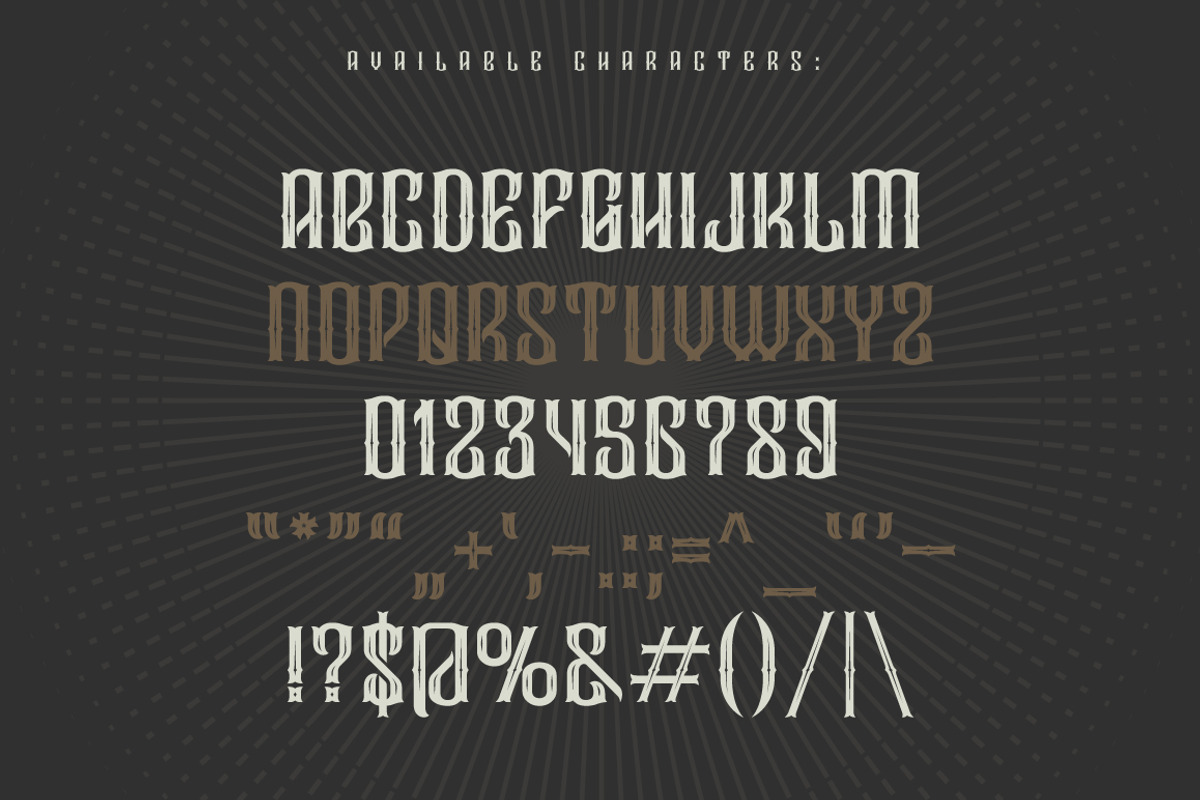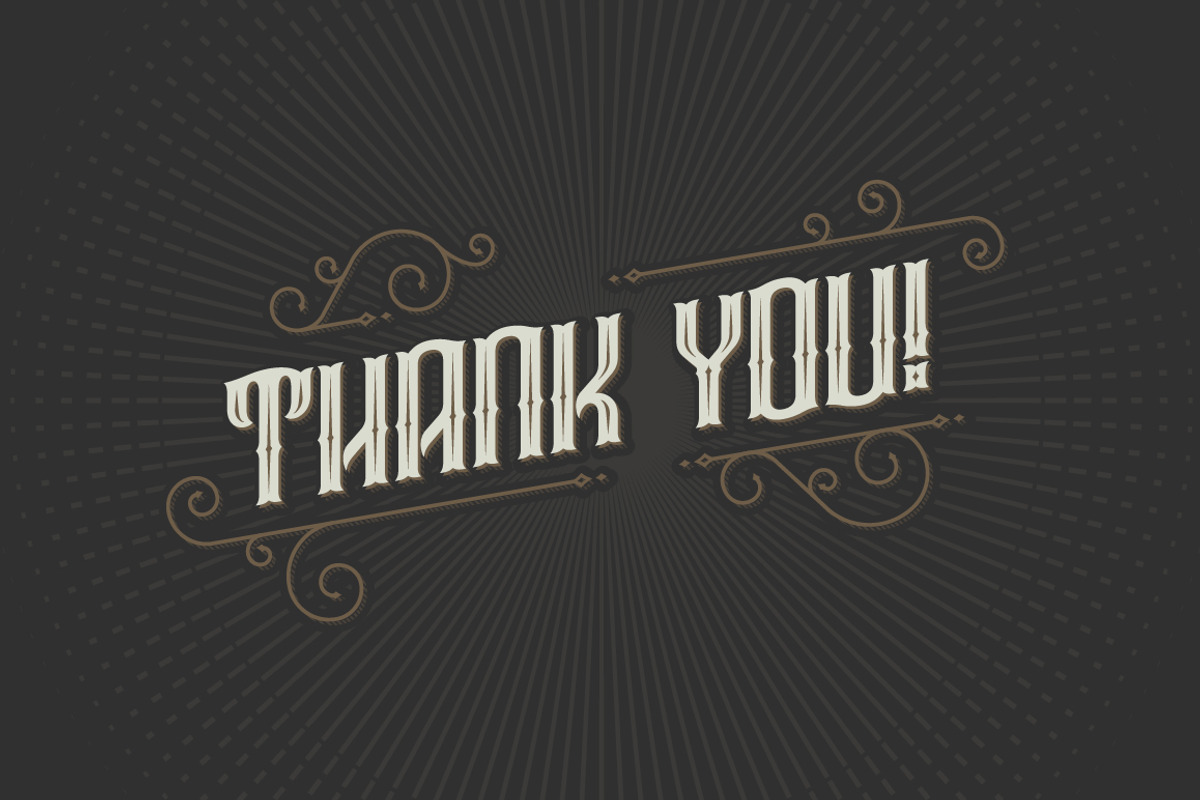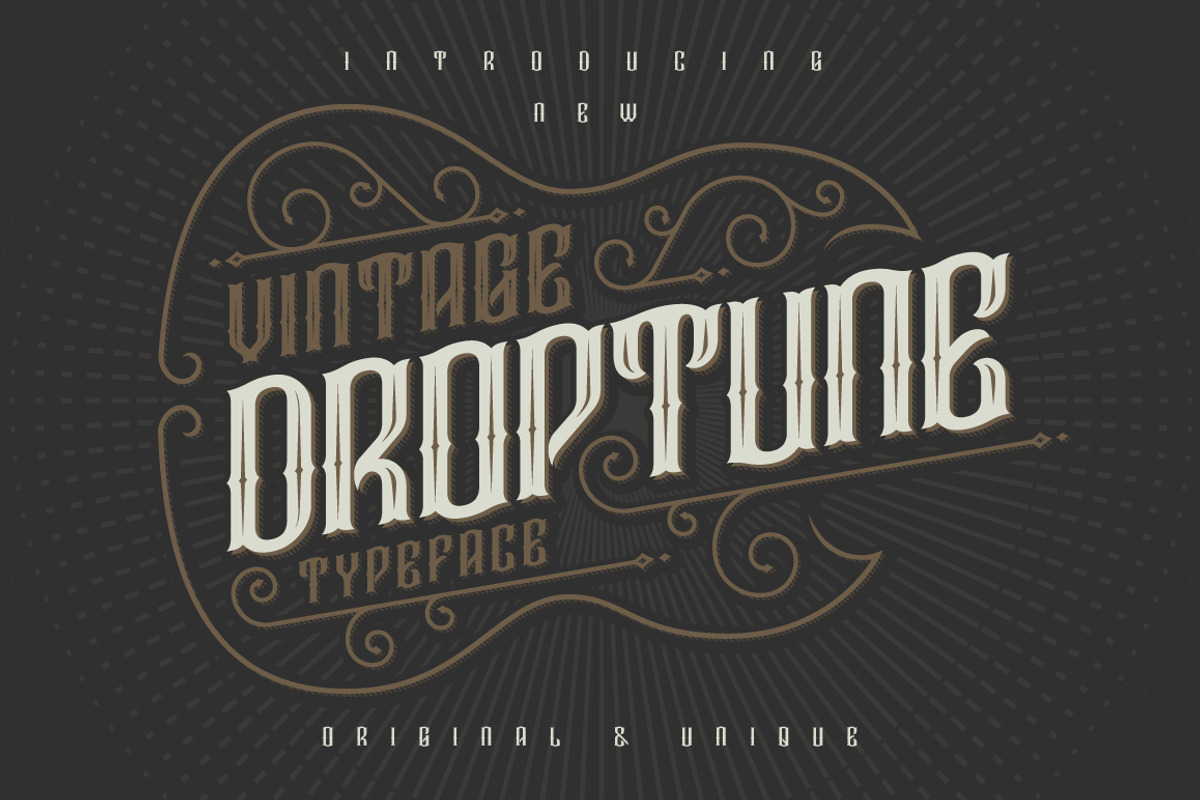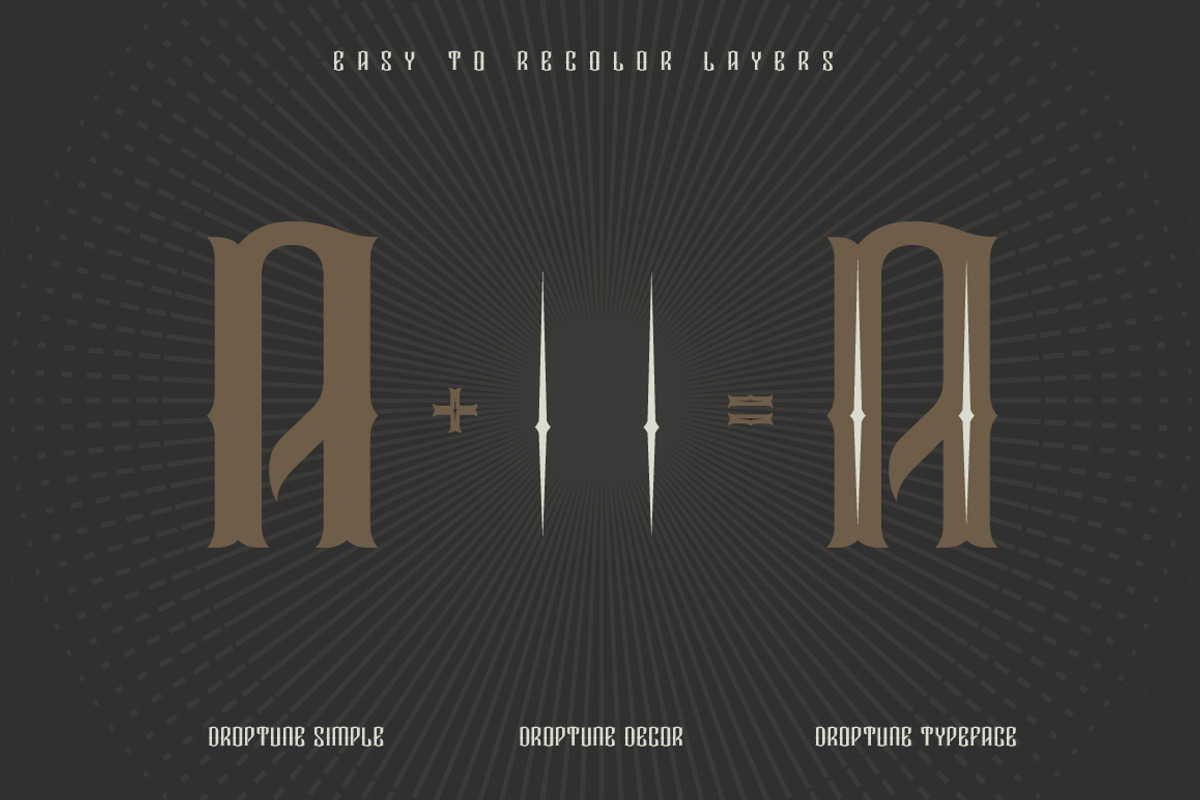
Droptune typeface
Droptune typeface by Gleb Guralnyk is a font selected for branding, posters, packaging, typography.
- Dark riffs, strong rhythm, low frequencies - it's all about heavy music, and, I hope, about this typeface :) Here is what you get inside: OT
Why Droptune typeface is worth a look
Droptune typeface by Gleb Guralnyk fits naturally into Branding, posters, packaging, typography.